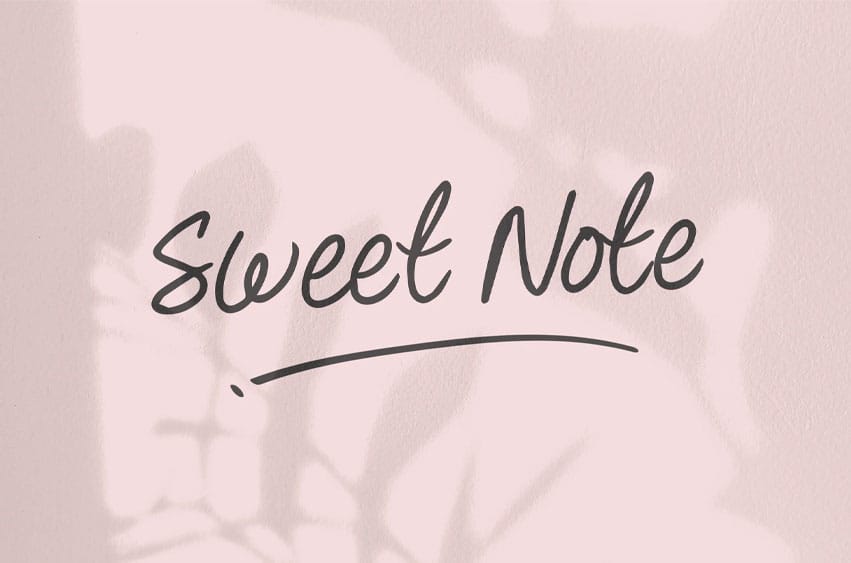
Sweet Note Font is a handwritten font that will suit perfectly for many projects. From personal note-taking, goodnotes font, wedding, classroom, card title, logos, and many more.